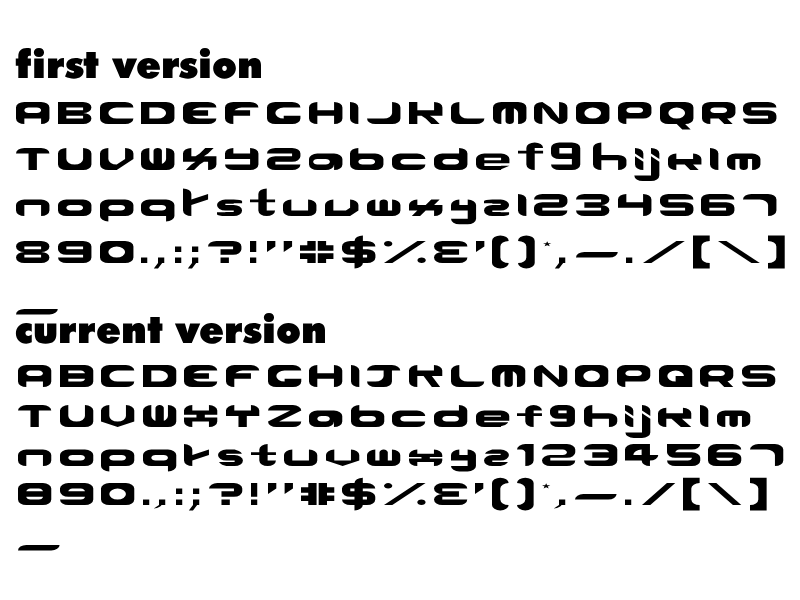
• Okay, I am excited to announce a big one for all the ones who are too lazy to scavenge for every single font for every single letter used in the game ローリーポーリーズの七転び八起き (Roly-Polys Nanakorobi Yaoki).
[heck are they even available?]
I am making a full-on project where I recreate every one of them.
!! REMASTERED GLYPHS UPDATE !! old glyphs kept but moved
updated glyphs